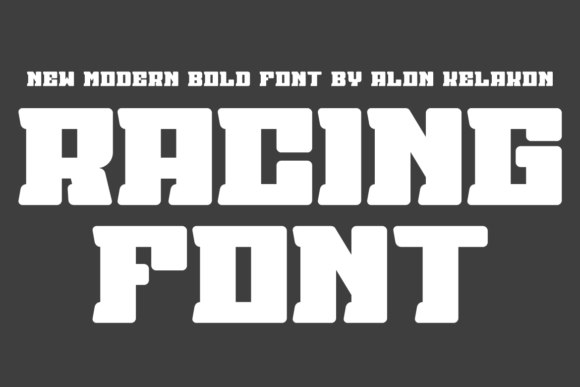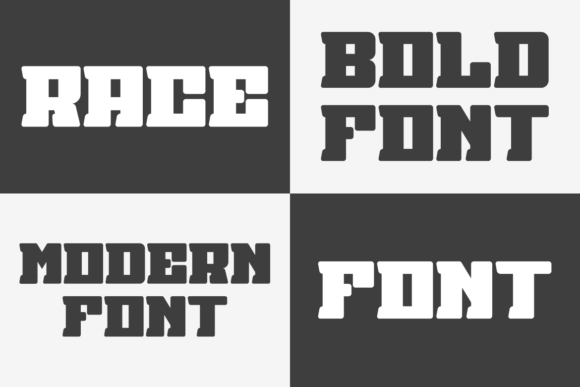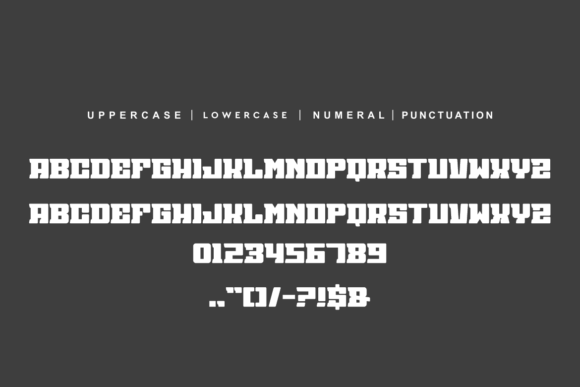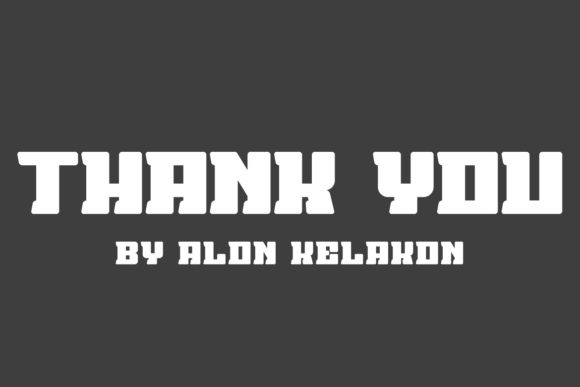
Unleash Your Creativity with Bold Speedy Font
Are you a designer, crafter, or DIY enthusiast looking for a unique and versatile font to elevate your projects? Look no further than the Bold Speedy Font! This exceptional font is ready to use for a wide range of applications, from labeling and clothing to movie screens, posters, movie titles, gigs, album covers, logos, and much more.
What Makes Bold Speedy Font Unique?
Bold Speedy Font stands out from the crowd with its distinctive and bold design. Its speedy and dynamic appearance is perfect for grabbing attention and making a statement. Whether you’re working on a commercial project or a personal DIY endeavor, this font is sure to add a professional touch and make your work stand out.
Key Features of Bold Speedy Font
- Unique Design: The Bold Speedy Font boasts a one-of-a-kind design that’s sure to set your project apart from the rest.
- Ready to Use: This font is fully prepared for immediate use in a variety of applications, saving you time and effort.
- Versatile: From labeling and clothing to movie screens and album covers, Bold Speedy Font is versatile enough to be used in numerous projects.
Applications of Bold Speedy Font
The possibilities are endless with Bold Speedy Font. Here are some of the many ways you can utilize this fantastic font:
- Labeling: Add a bold and professional touch to your product labels, stickers, or any other type of labeling project.
- Clothing: Design eye-catching t-shirts, hoodies, or hats that are sure to turn heads.
- Movie Screens and Posters: Create stunning movie titles or poster designs that capture the essence of the film.
- Gig and Event Promotions: Promote your events, concerts, or gigs with bold and attention-grabbing posters or flyers.
- Album Covers: Give your music a professional edge with a uniquely designed album cover.
- Logos: Establish your brand identity with a memorable and bold logo.
Why Choose Bold Speedy Font?
In a world where visual content is king, having a font that can keep up with your creative demands is essential. Bold Speedy Font offers:
- Time Efficiency: With its ready-to-use format, you can save time and focus on other aspects of your project.
- Professionalism: Elevate your project with a font that looks professionally designed.
- Uniqueness: Stand out from the competition with a font that has a distinct personality.
Bold Speedy Font is a game-changer for designers, crafters, and DIY enthusiasts looking to add a unique touch to their projects. Its bold and dynamic design, coupled with its versatility and ease of use, makes it an indispensable tool in your design arsenal. Download Bold Speedy Font today and unleash your creativity!